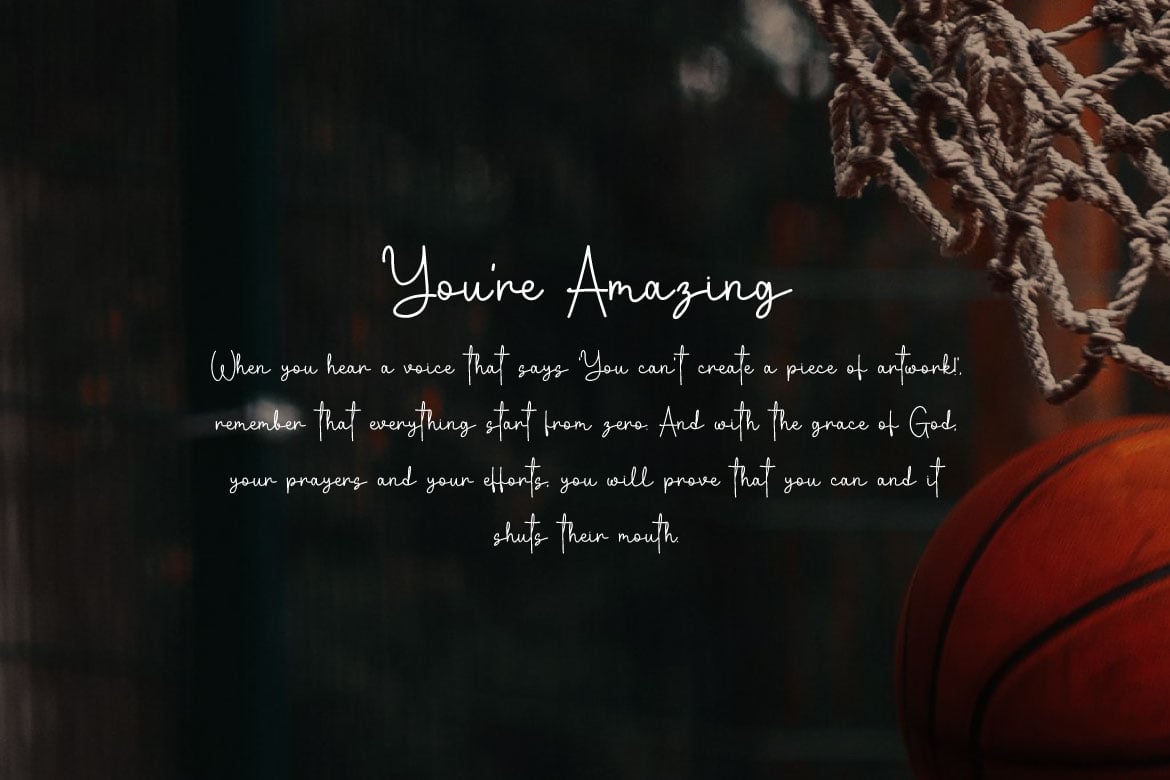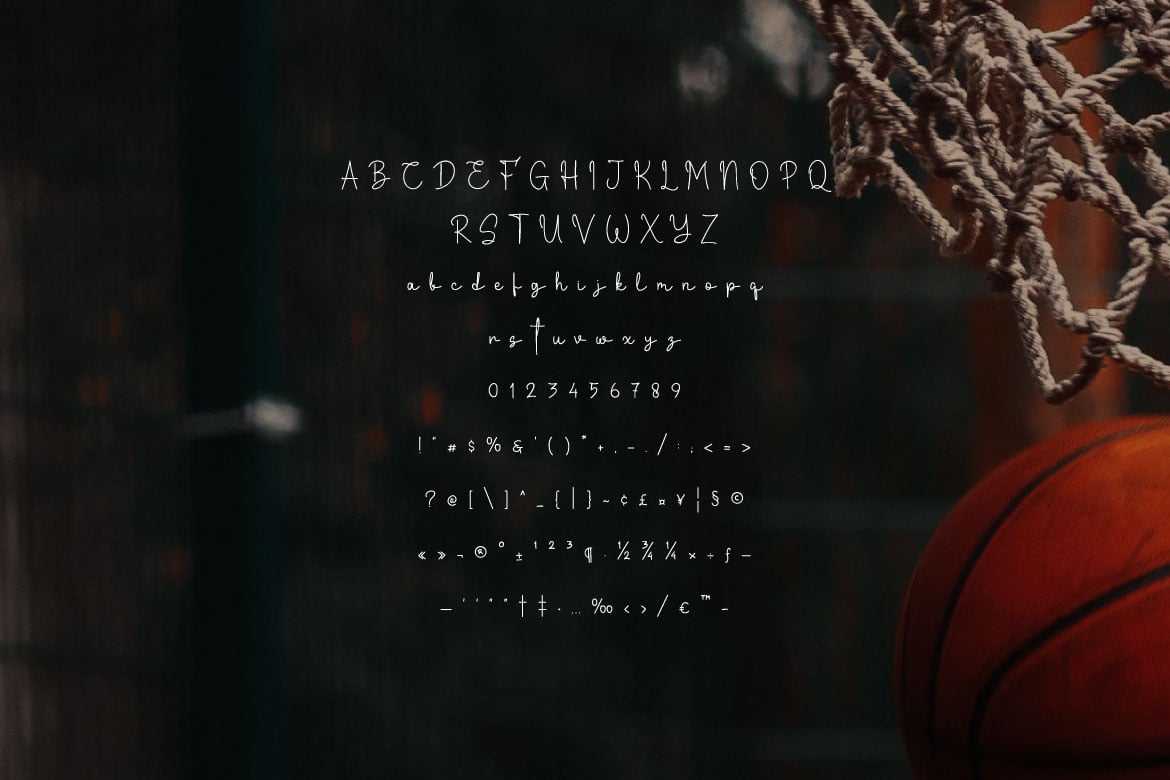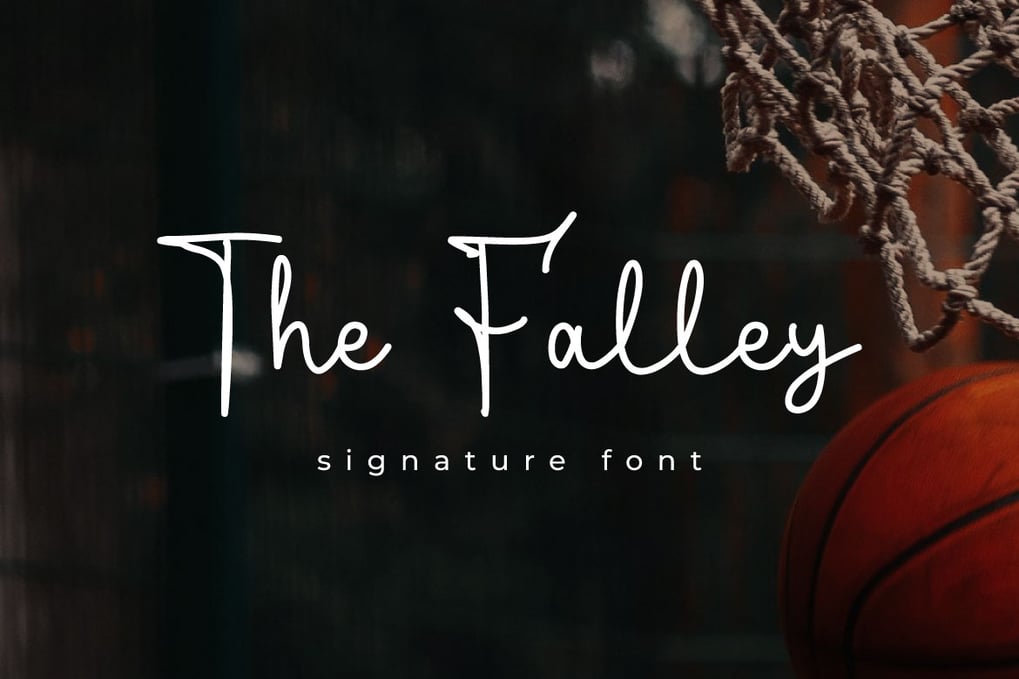
The Falley – Signature Font
Introducing our The Falley – Signature Font, a sophisticated and stylish typeface designed to give your projects a touch of class and authenticity. Perfect for branding, invitations, business cards, logos, and more, this font mimics the fluid, graceful strokes of a personal signature. Crafted with meticulous attention to detail, it offers both uppercase and lowercase letters, numerals, punctuation, and a variety of ligatures to ensure your text flows naturally.